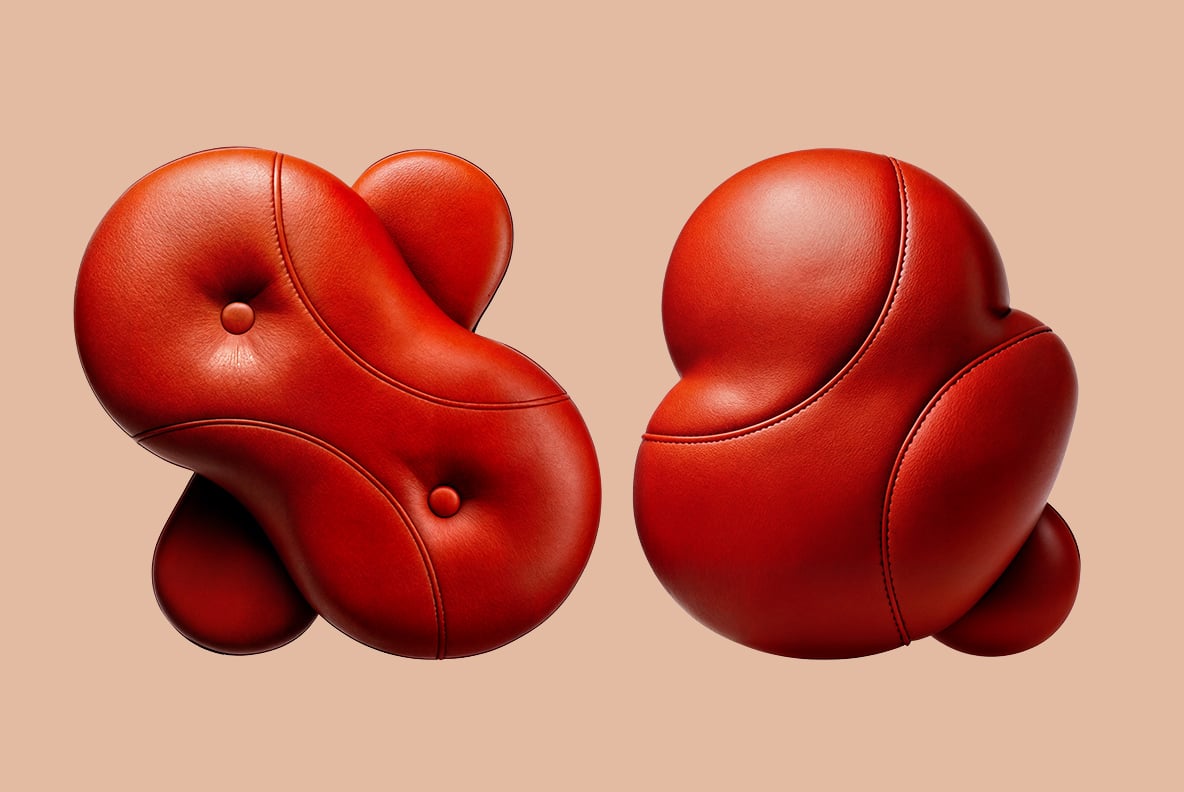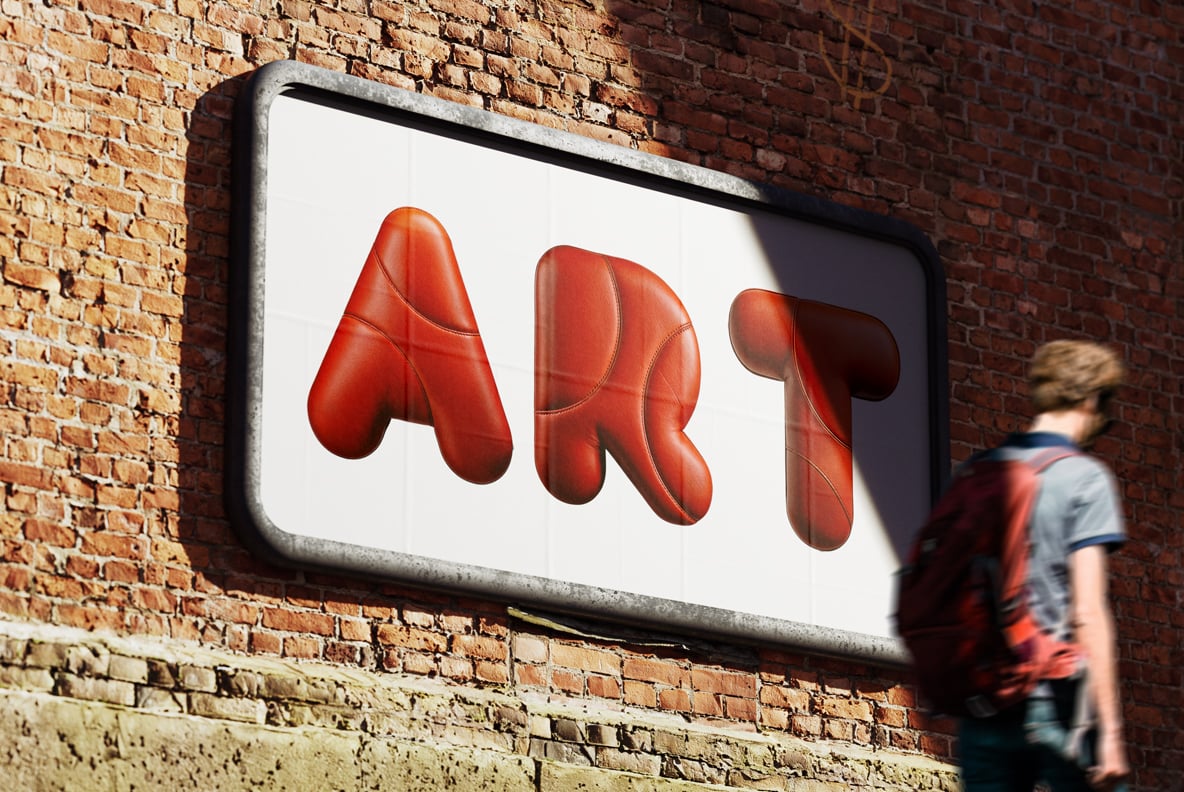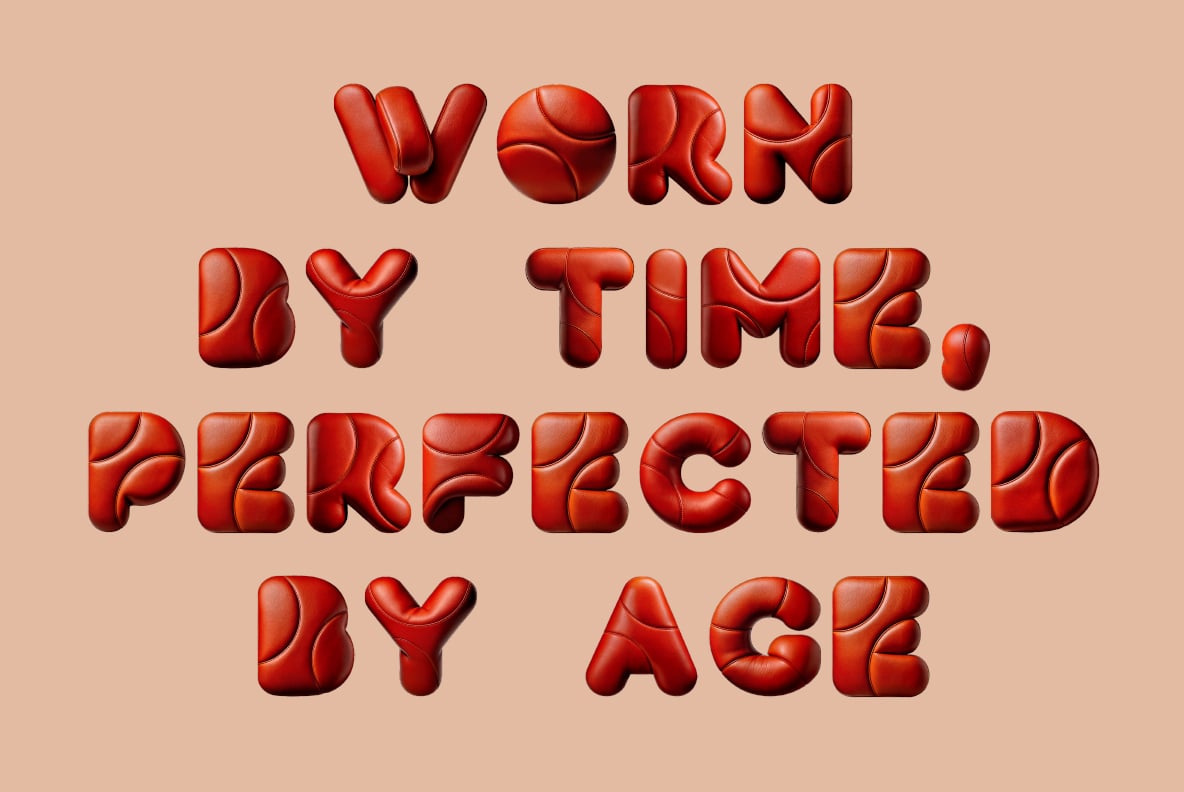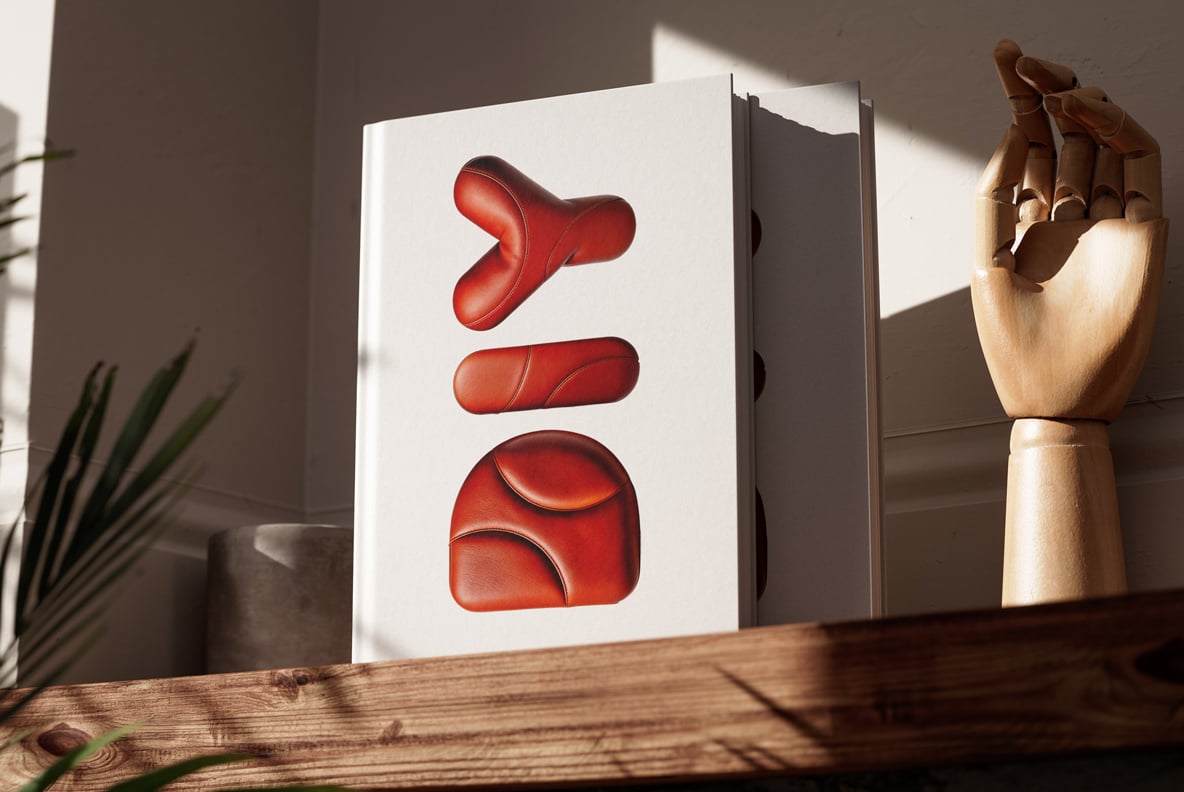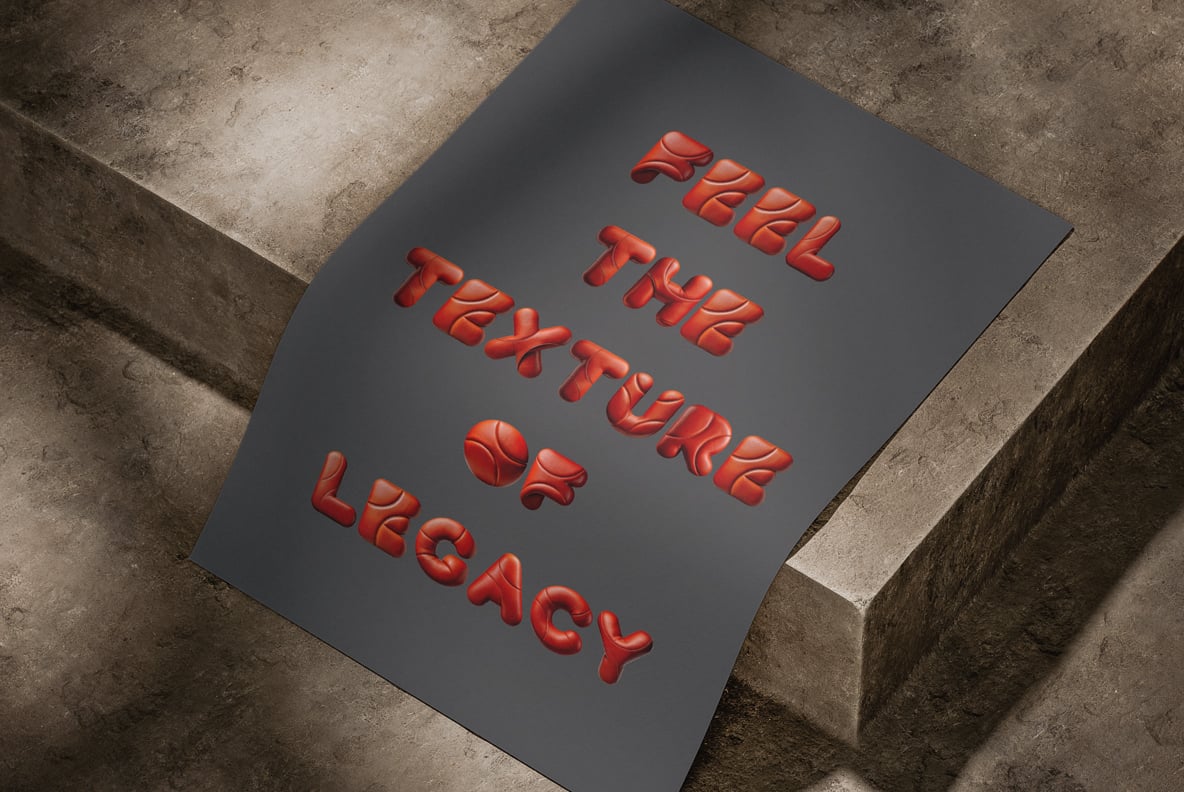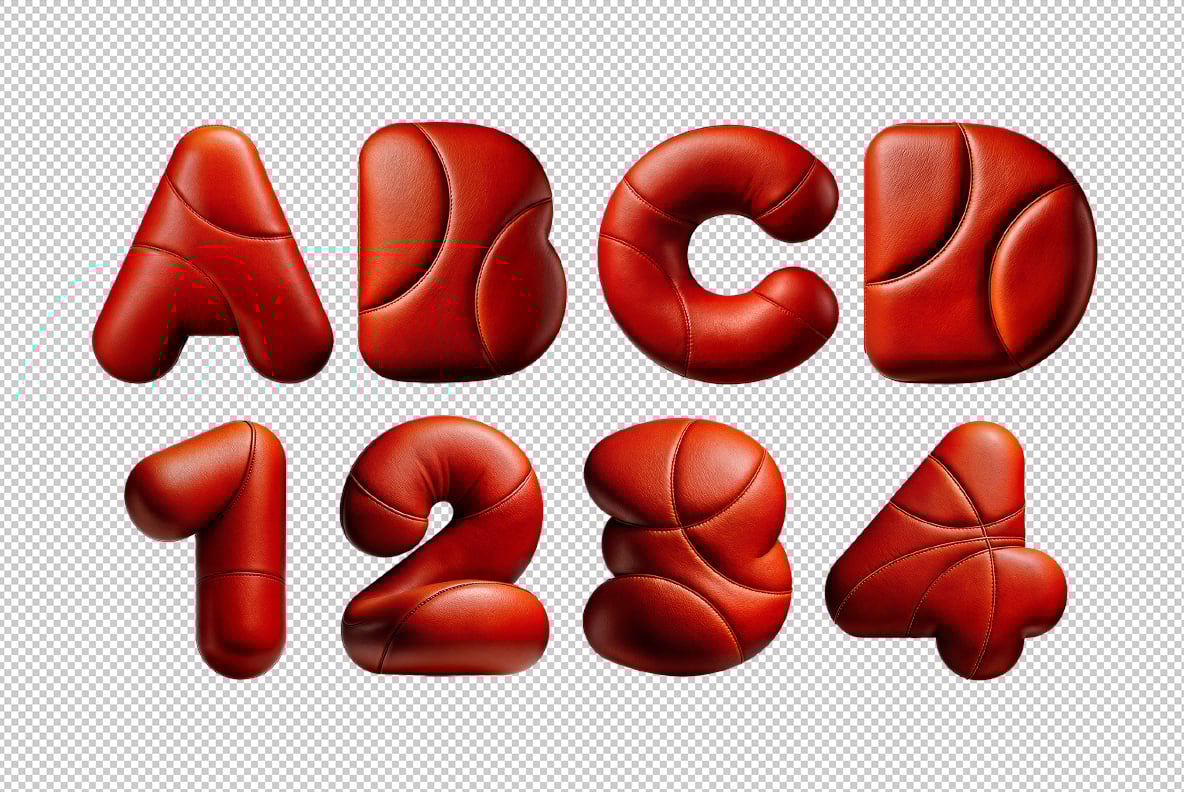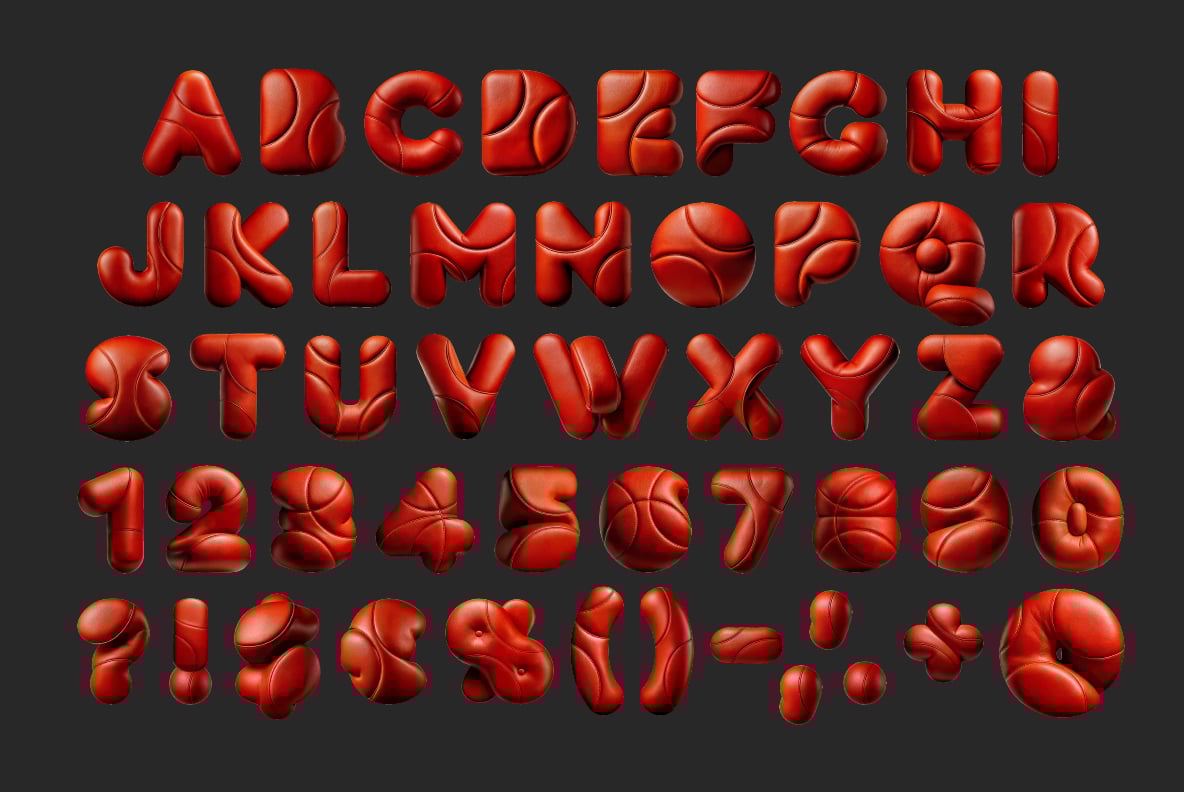
Leather Art Font
Leather Art Font is where bold attitude meets buttery luxury! Imagine if your favorite leather armchair got tired of just sitting around and decided to reinvent itself as an alphabet — smooth, plump, and stitched to perfection. Each letter feels like it’s ready to cruise down the highway in a vintage convertible or star in a high-end fashion ad. With rich textures, playful curves, and a seriously cool vibe, this font brings a quirky elegance to any design. Whether you’re branding a rock band or crafting the fanciest birthday card ever, Leather Art Font rides in with serious style.
A high definition OpenType Font. Contains uppercase characters, numerals and basic punctuation. (Draw height roughly 800 pixels). All letters and glyphs that comprises this font you can see on the preview.